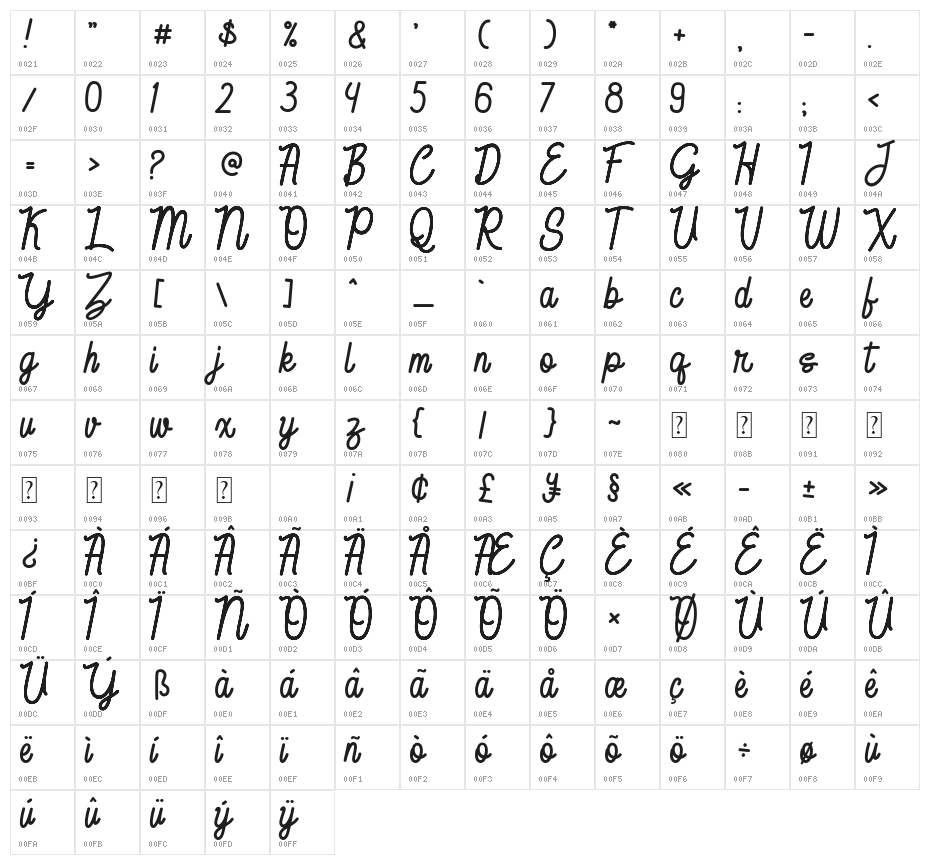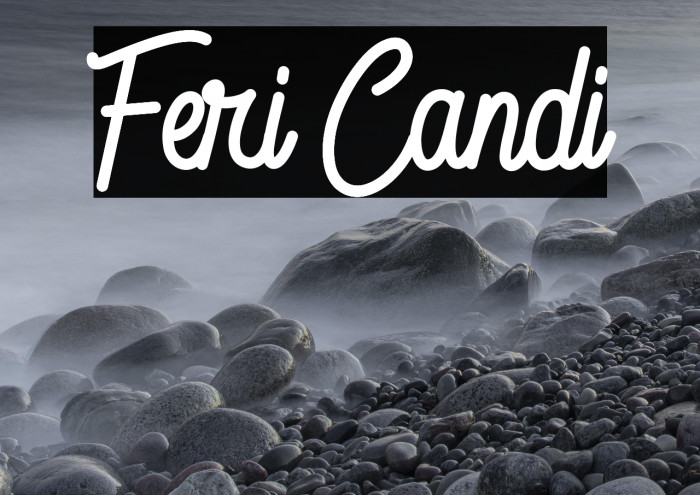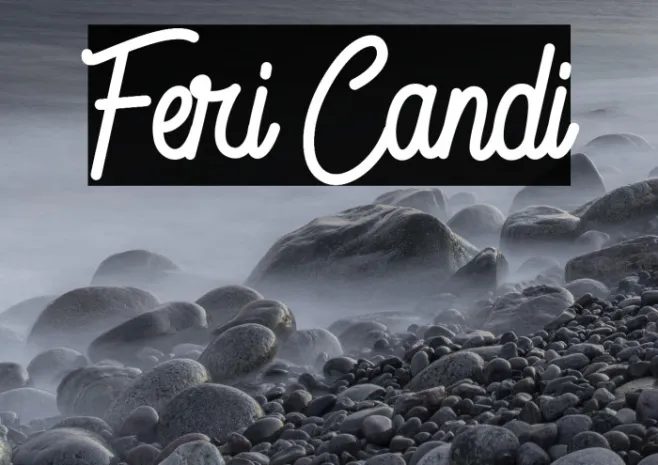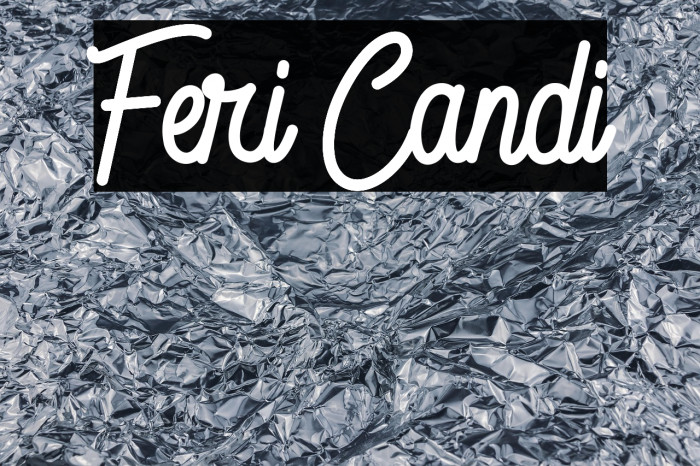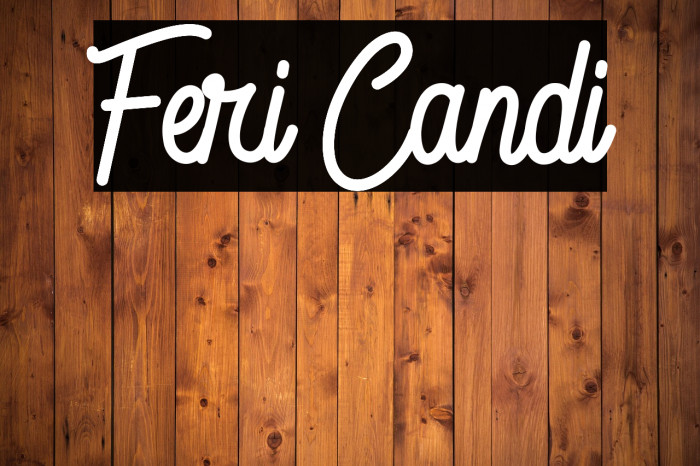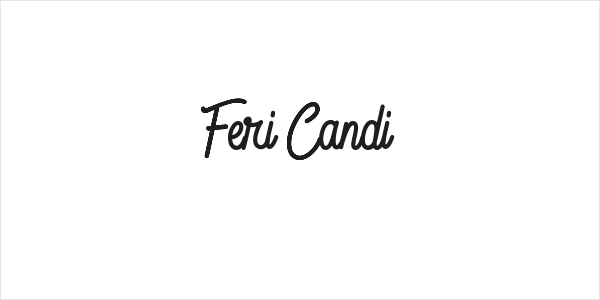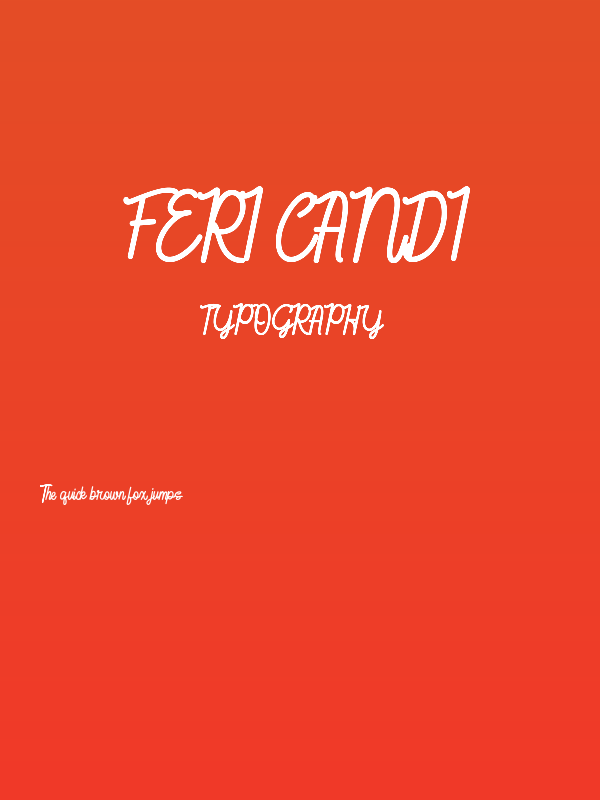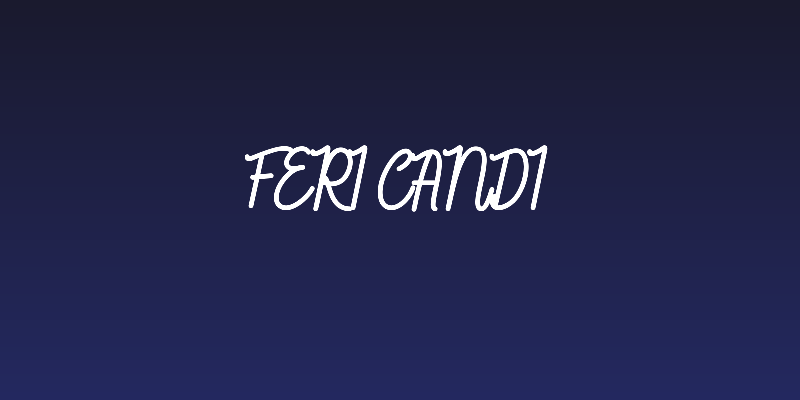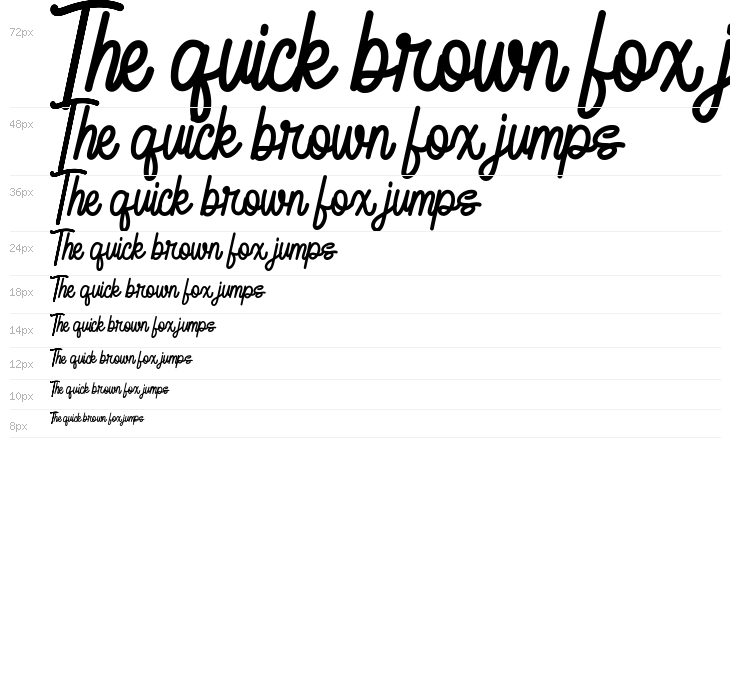
Feri Candi Font
Feri Candi Description
This font features a lively and dynamic script style, characterized by its fluid and connected letterforms. The uppercase letters are elegantly looped, while the lowercase letters maintain a consistent flow, creating a harmonious and cohesive look. The numerals are rounded and maintain the same fluidity as the letters, contributing to a unified appearance. Special characters are thoughtfully designed to match the overall aesthetic, ensuring versatility in various applications. The font's playful yet sophisticated style makes it suitable for a range of creative projects.
| Use Case | Logos, Invitations, Social Media Graphics |
| Proposed Projects | Ideal for wedding invitations, greeting cards, branding, and social media graphics. |